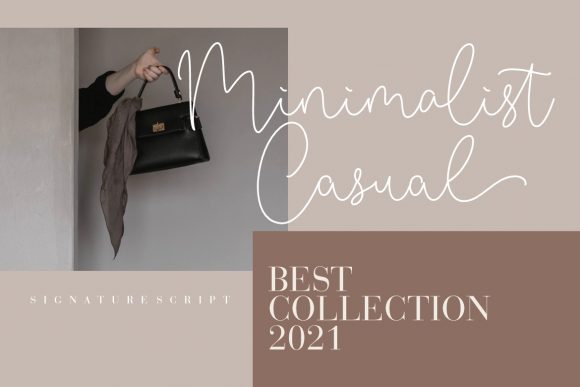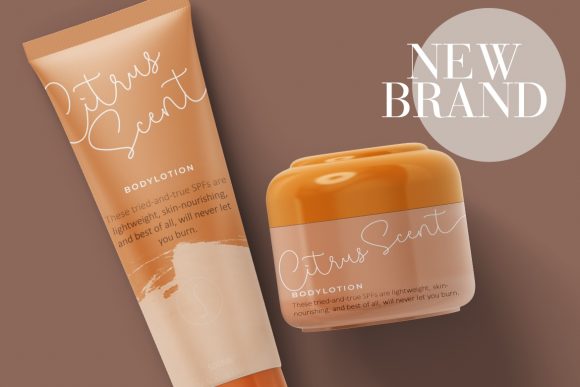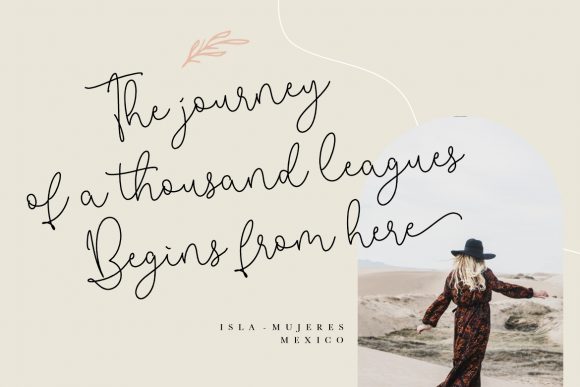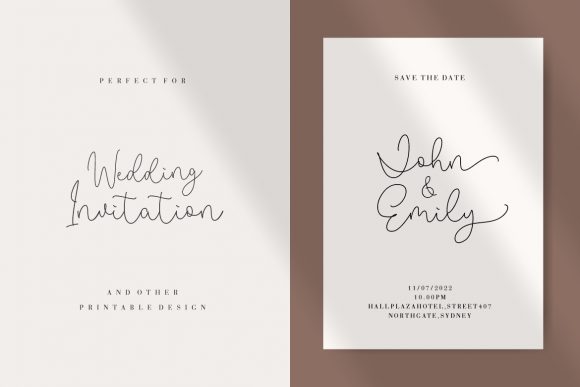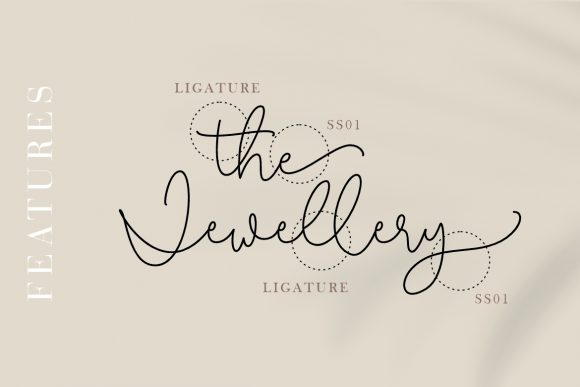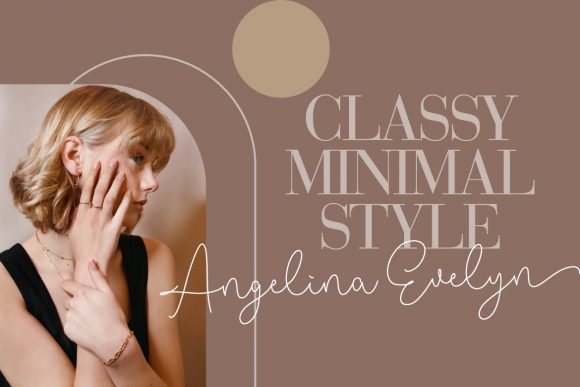
Introduction to Rattiar Font
Rattiar is a beautiful light handwritten font with a unique feel and a stunning impact.
Key Features of Rattiar Font
Why Choose Rattiar Font?
Rattiar Font offers exceptional quality and versatility, making it a valuable addition to your design toolkit. Whether you’re creating for personal projects or commercial use, Rattiar Font delivers professional results.